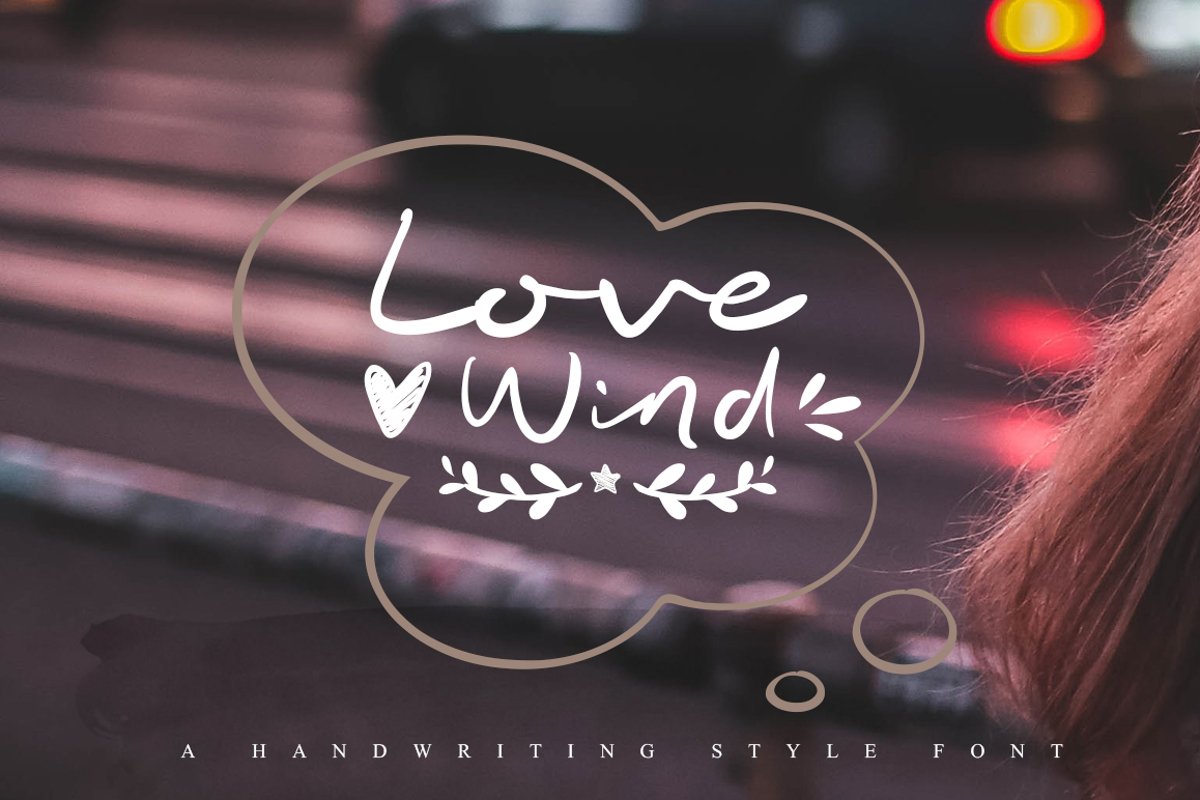
Love Wind font
Love Wind Extras
Love Wind
Love Wind is a set of handwritten style font, It is smooth, free, smart, It include dozens of ligature glyph, the combination of a variety of changes. And some love symbols.